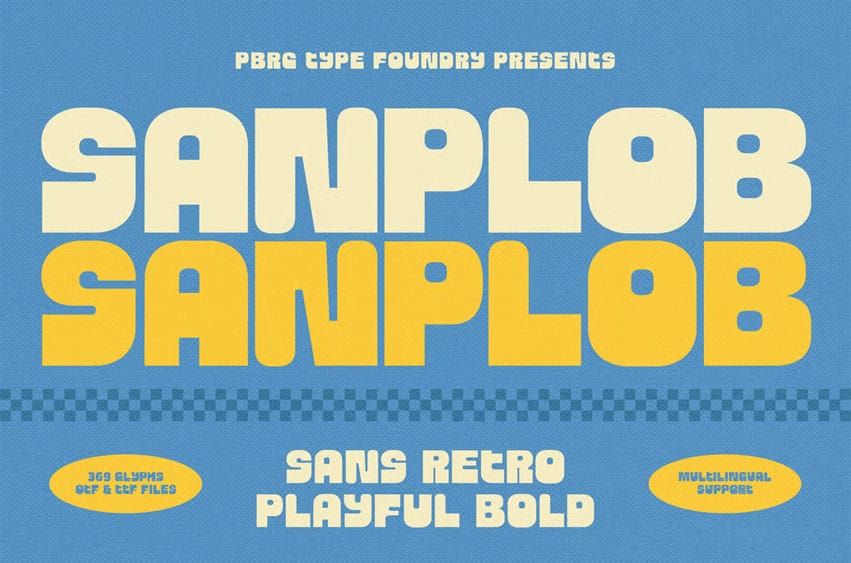
Sanplob Font is a retro-style sans-serif font featuring bold, rounded, and playful letterforms. Its soft, full shapes give a friendly and cheerful impression—perfect for headlines, packaging, and vibrant, nostalgic designs.
Ideal for headlines, logos, editorials, packaging, quotes, films, games, album covers, books, and promotional materials. This font ensures your design stands out in any setting.